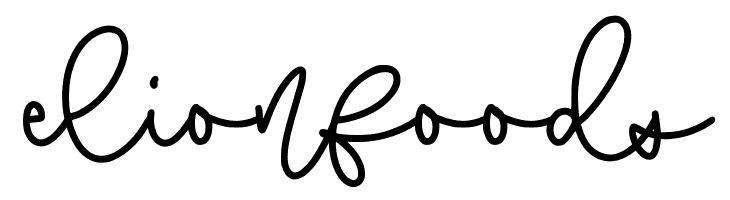
( Fonts by Douglas Vitkauskas )
An elegant and flowing script font with dynamic strokes and a handwritten appearance.
( Fonts by Douglas Vitkauskas )
A bold, expressive script font with elegant curves and dynamic flow.
( Fonts by olivetype )
Playful handwritten font with a casual style.
( Fonts by Vultype )
( Fonts by RGB Studio )
Elegant cursive script with flowing, interconnected letters.
( Fonts by Octotype | Thomas Boucherie )
A cursive, handwritten font with elegant, flowing strokes.
( Fonts by Storytype Studio )
An elegant, cursive font with flowing, interconnected letters and a calligraphic style.
An elegant, flowing script font with graceful, cursive strokes.
( Fonts by Storytype Studio )
Elegant script font with a handwritten style.
( Fonts by Beautypes )
A whimsical and elegant handwritten script font with playful loops and curves.
( Fonts by Vunira Design )
( Fonts by Omotu Studio )
Handwritten script font with smooth, connected strokes.
( Fonts by Nirmala Creative )
A playful, casual handwritten font with rounded edges and smooth curves.
( Fonts by Mr. Typeman )
A lively, flowing script font with a warm, handwritten style.
( Fonts by Mr. Typeman )
A delicate, elegant handwritten font with flowing cursive letterforms.
( Fonts by Mr. Typeman )
A casual, elegant handwritten font with smooth, flowing letterforms.
( Fonts by Xerographer Fonts )
A graceful, cursive script font with a handwritten style.
( Fonts by Maulana Creative )
A thin, casual handwritten script with fluid, continuous lines.